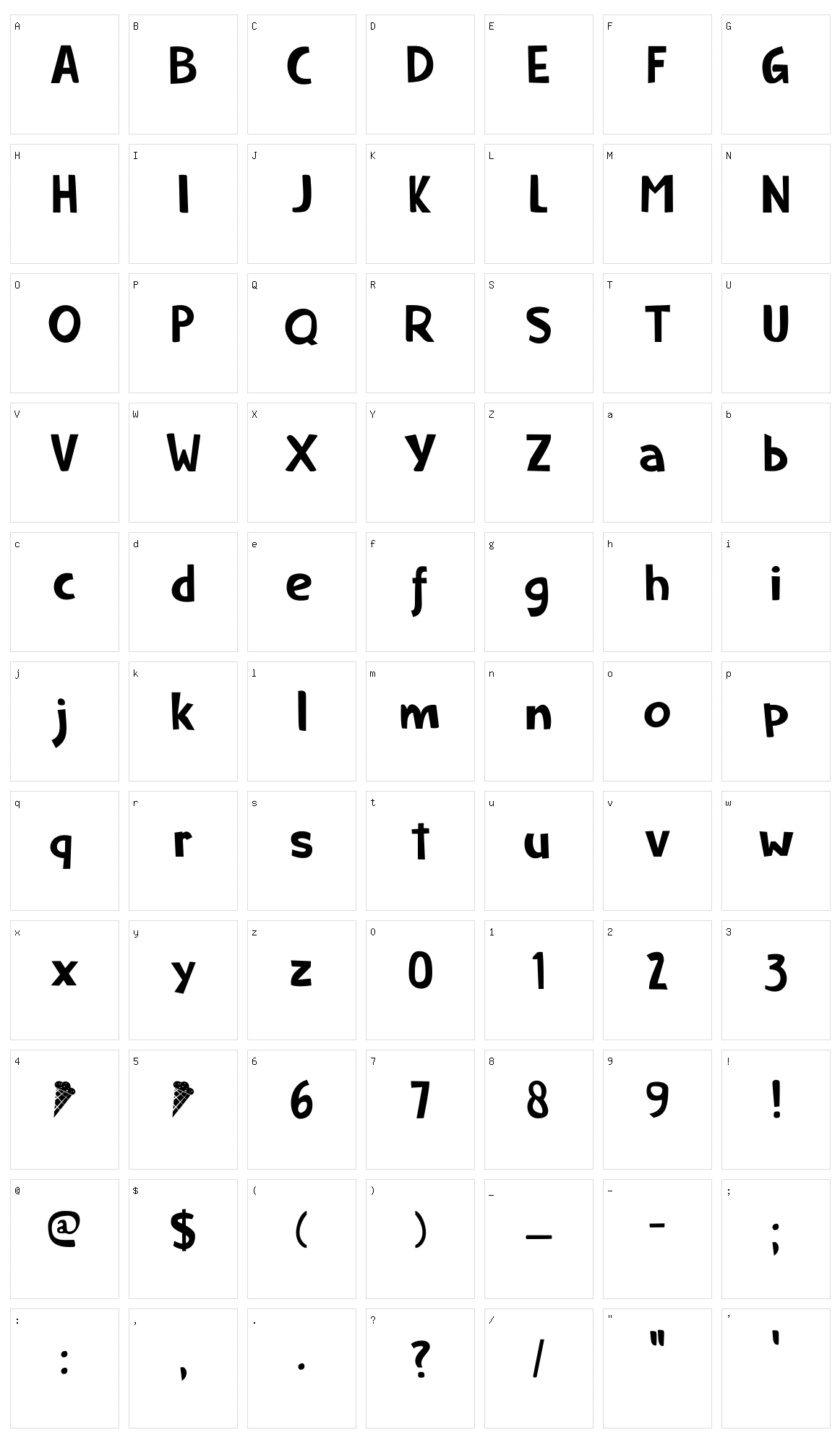
The free font Ice Cream Man is carefully designed by Hanoded, showcasing a thoughtful balance of creativity and usability and falls under the Cartoon font style. When you download the ZIP file, it contains only 356.14 KB of font files, making it lightweight and quick to download. Please review the license details below to understand permitted usage and distribution rights. If license information is not available, we recommend using this font for personal projects only or contacting the author directly for commercial usage permissions.